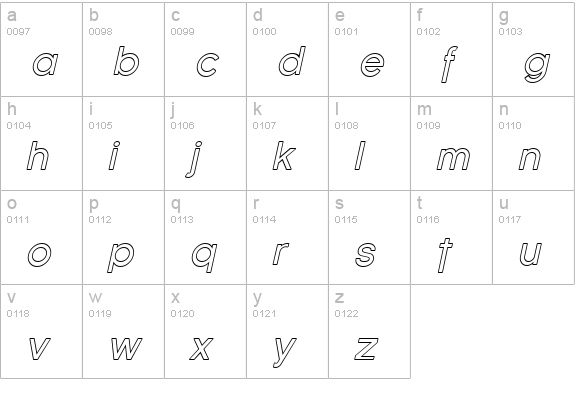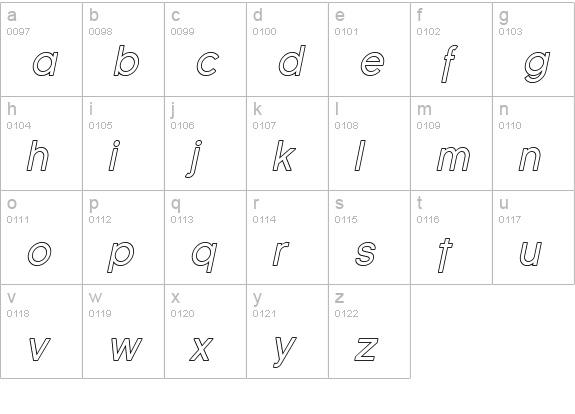
Florencesans Outline Italic is a distinctive, italic variant in the Florencesans typeface family \xE2\x80\x94 well suited to design and typography projects.
Florencesans Outline Italic font is a modern and stylish typeface that exudes elegance and sophistication. Its sleek and slender design makes it perfect for adding a touch of refinement to your projects. The italic style adds a unique flair, making it stand out from other fonts. This font is ideal for a wide range of design projects, from logos and branding to invitations and social media graphics. Its versatility and readability make it a go-to choice for designers looking to make a bold statement. Best of all, Florencesans Outline Italic font is available for free download at FontsMarket.com. Get your hands on this gorgeous font today and elevate your designs to the next level.